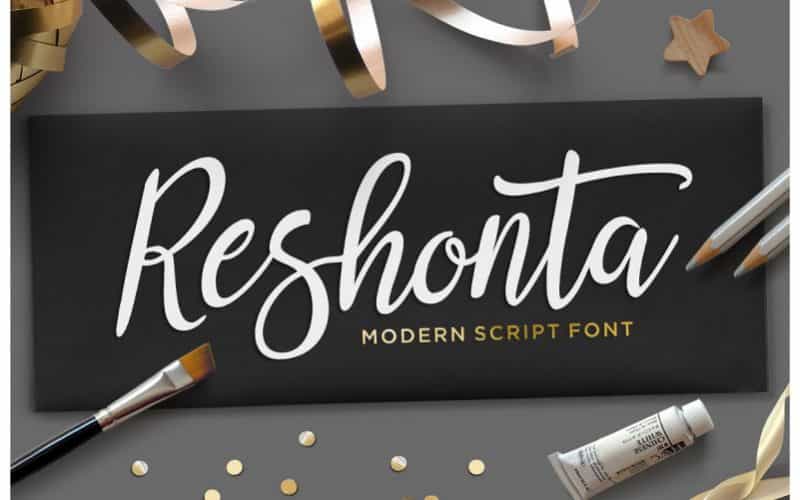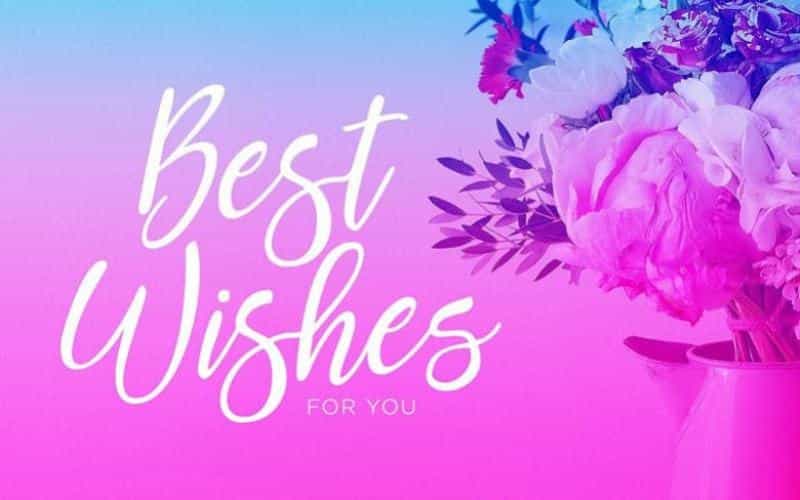
Reshonta Script is a hand-brushed modern calligraphy script font that is made with both pen and brush. the dancing baseline with lowercase alternates. Were painted on paper. It was scanned, vectorized and then transformed into a font with great care.